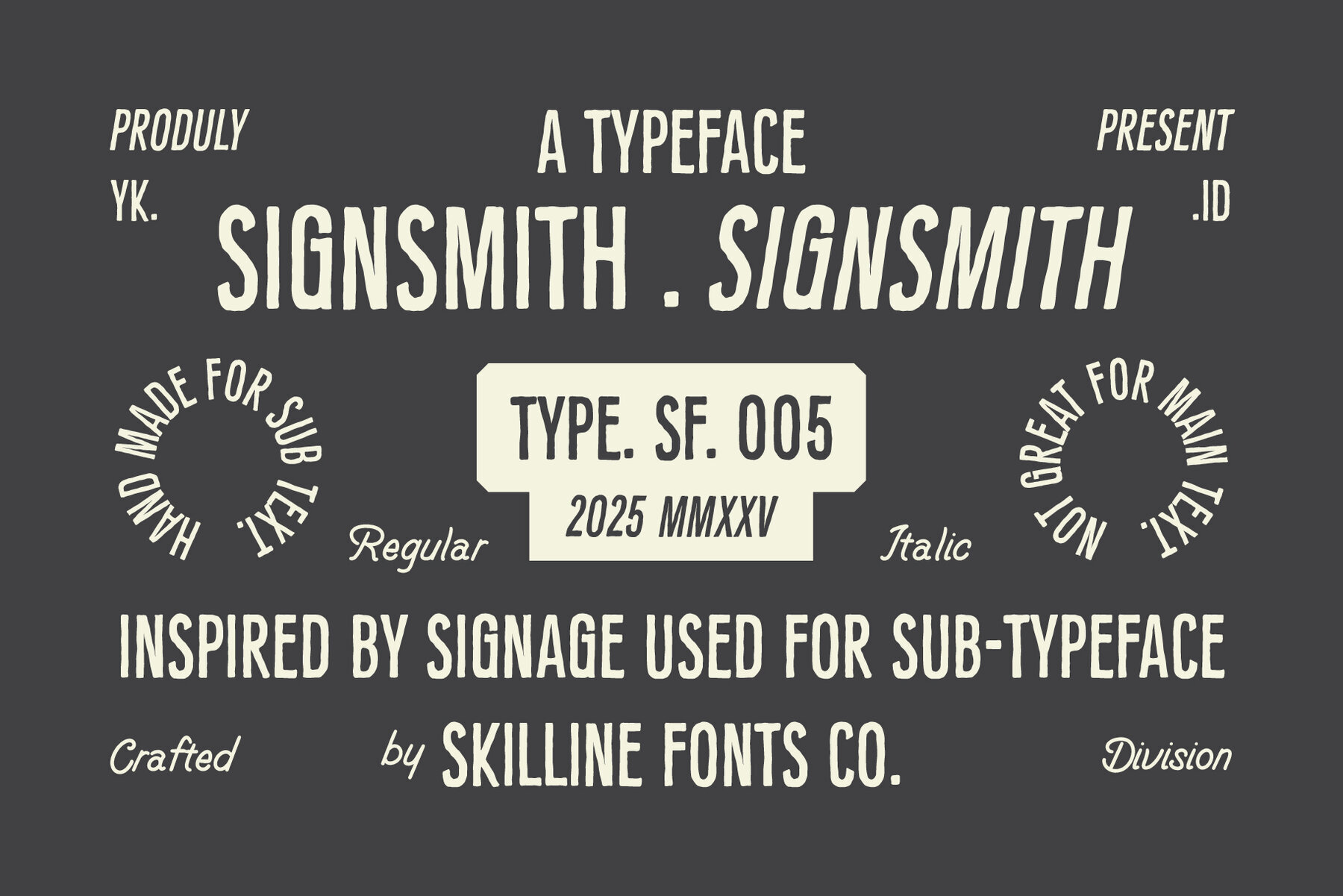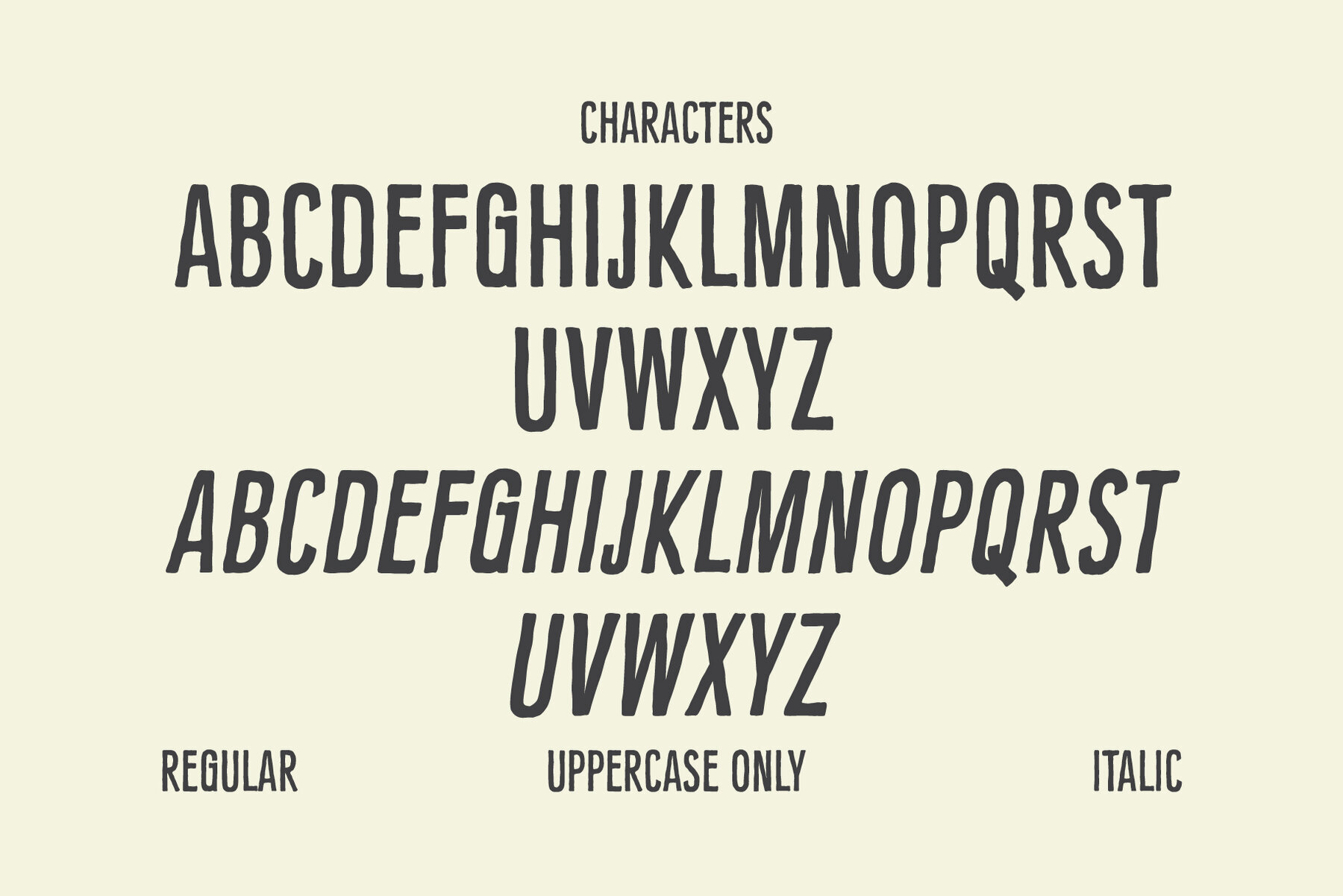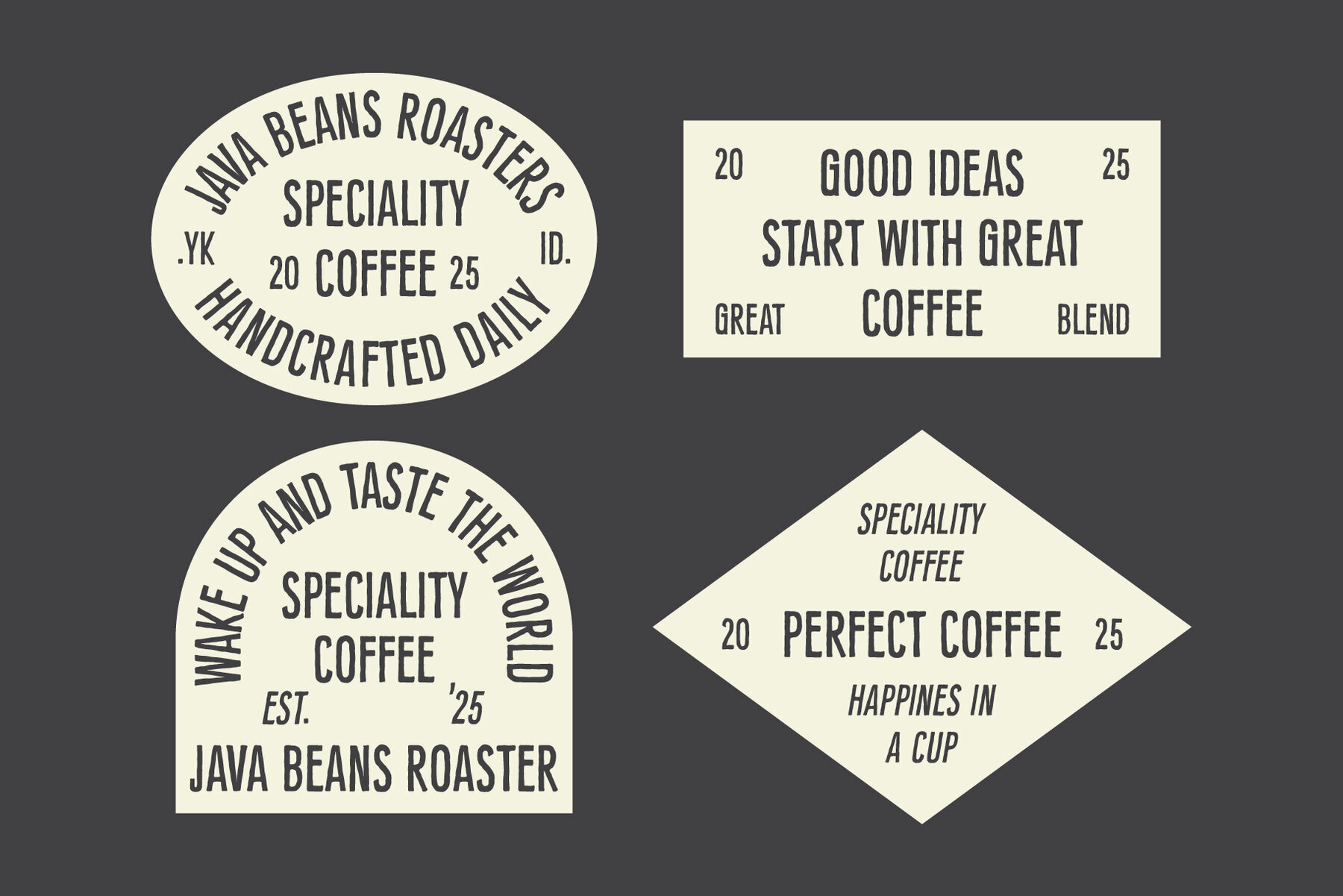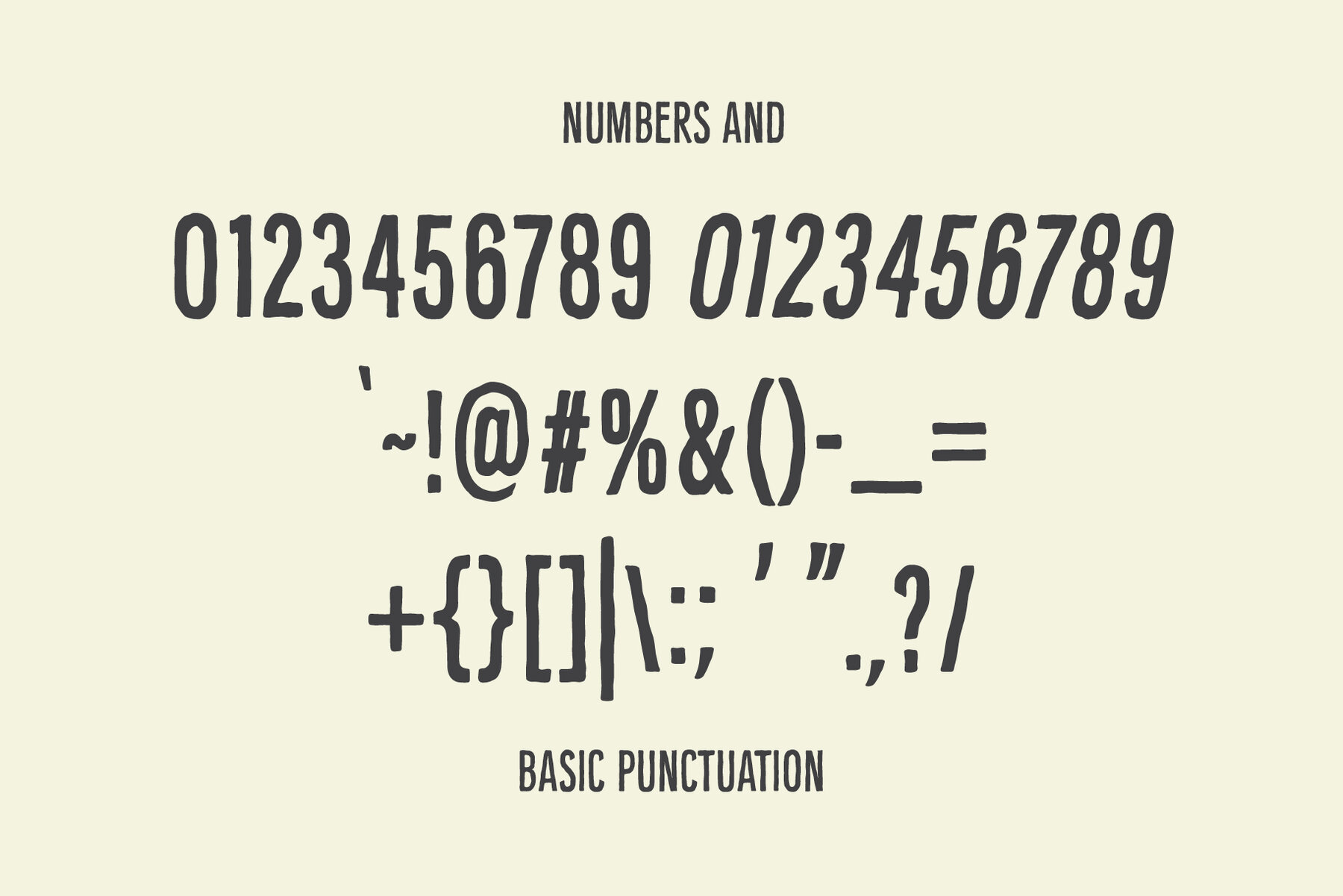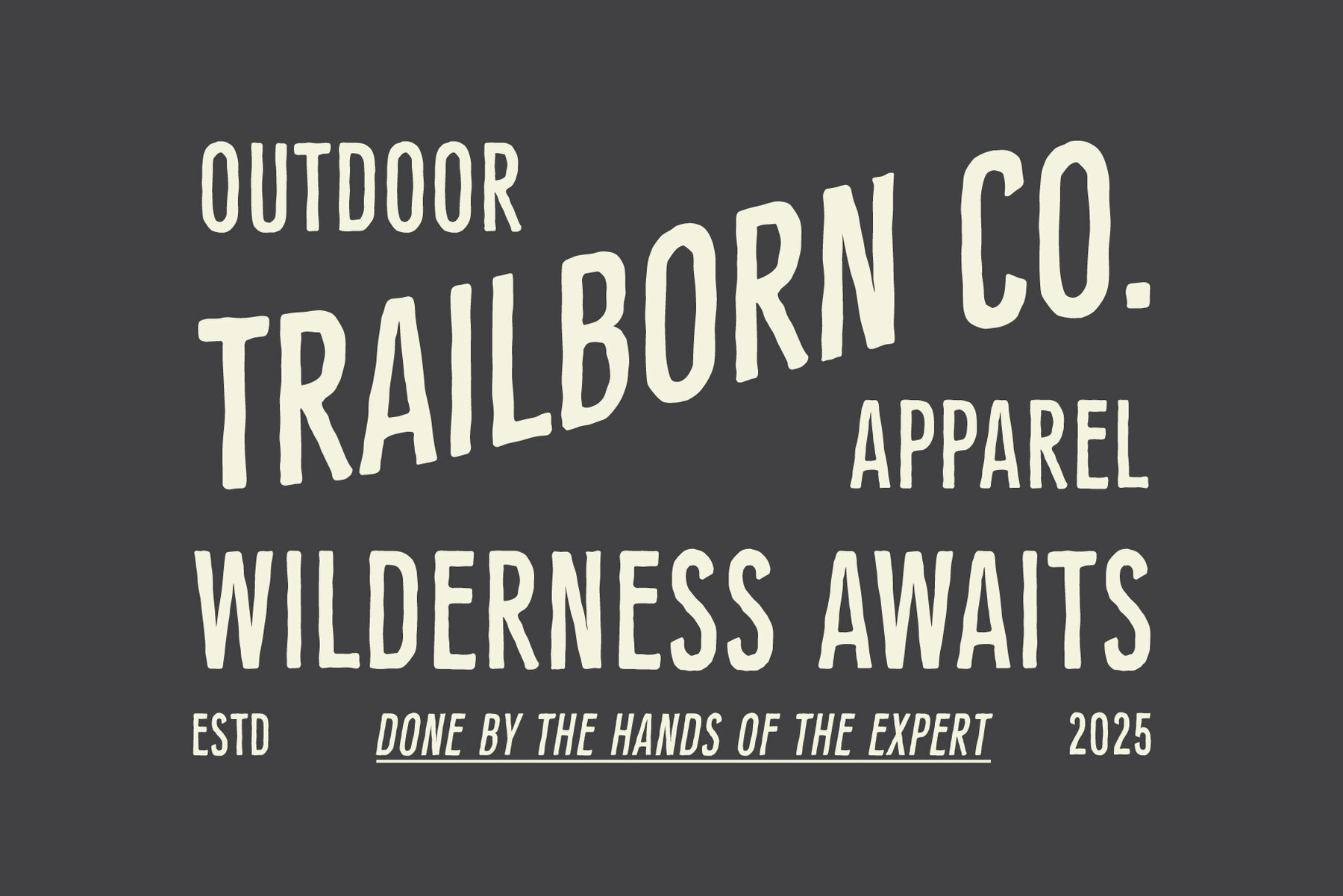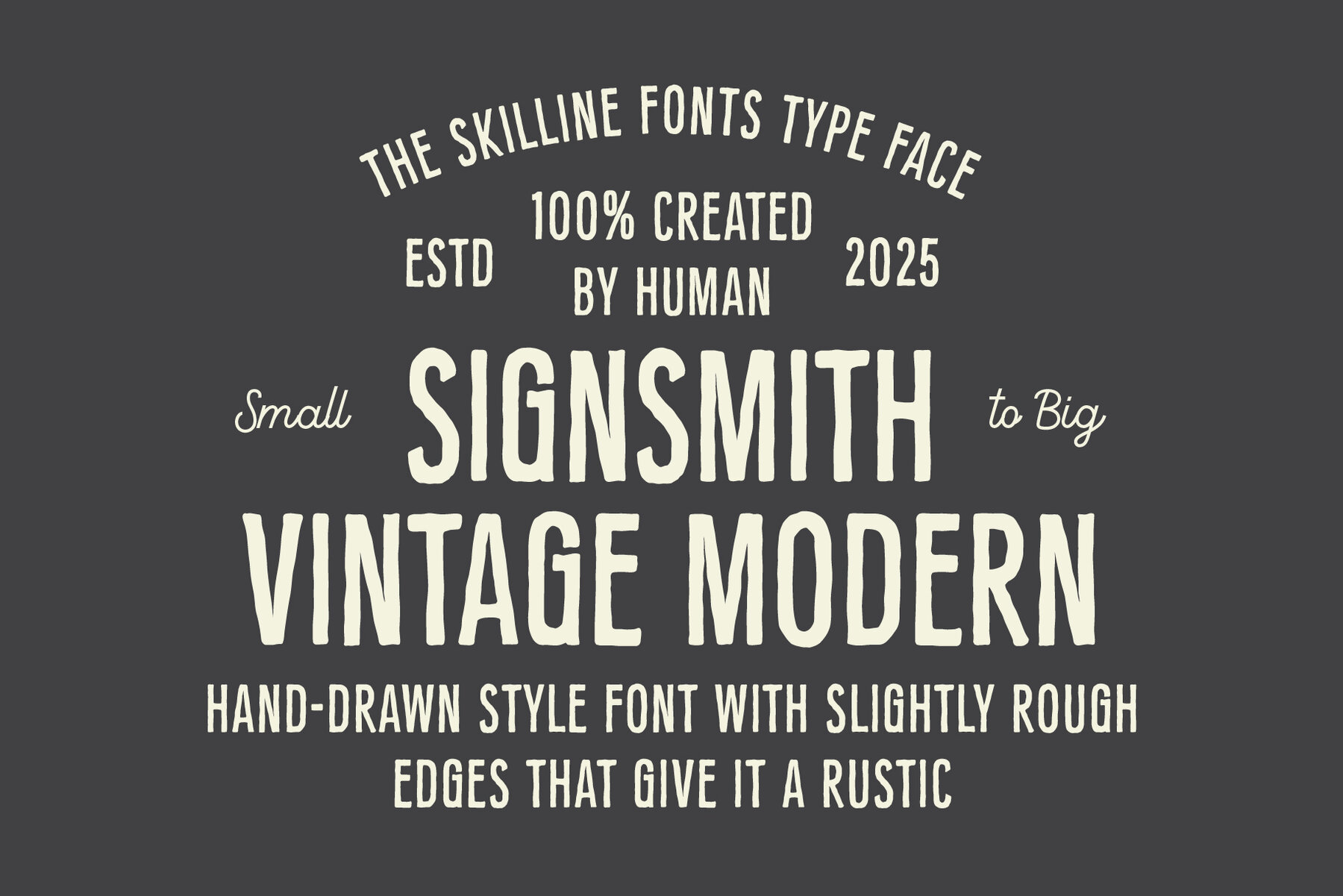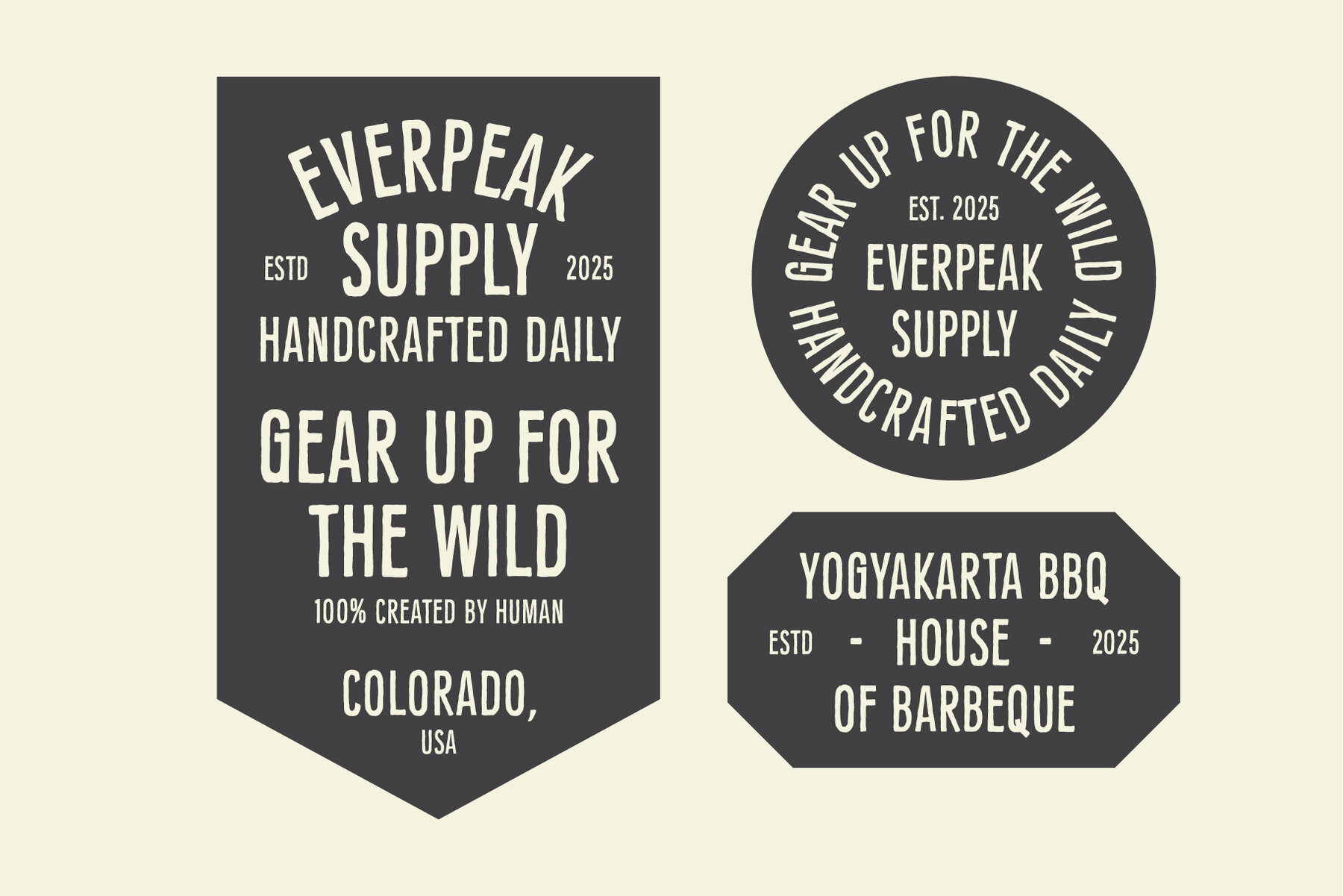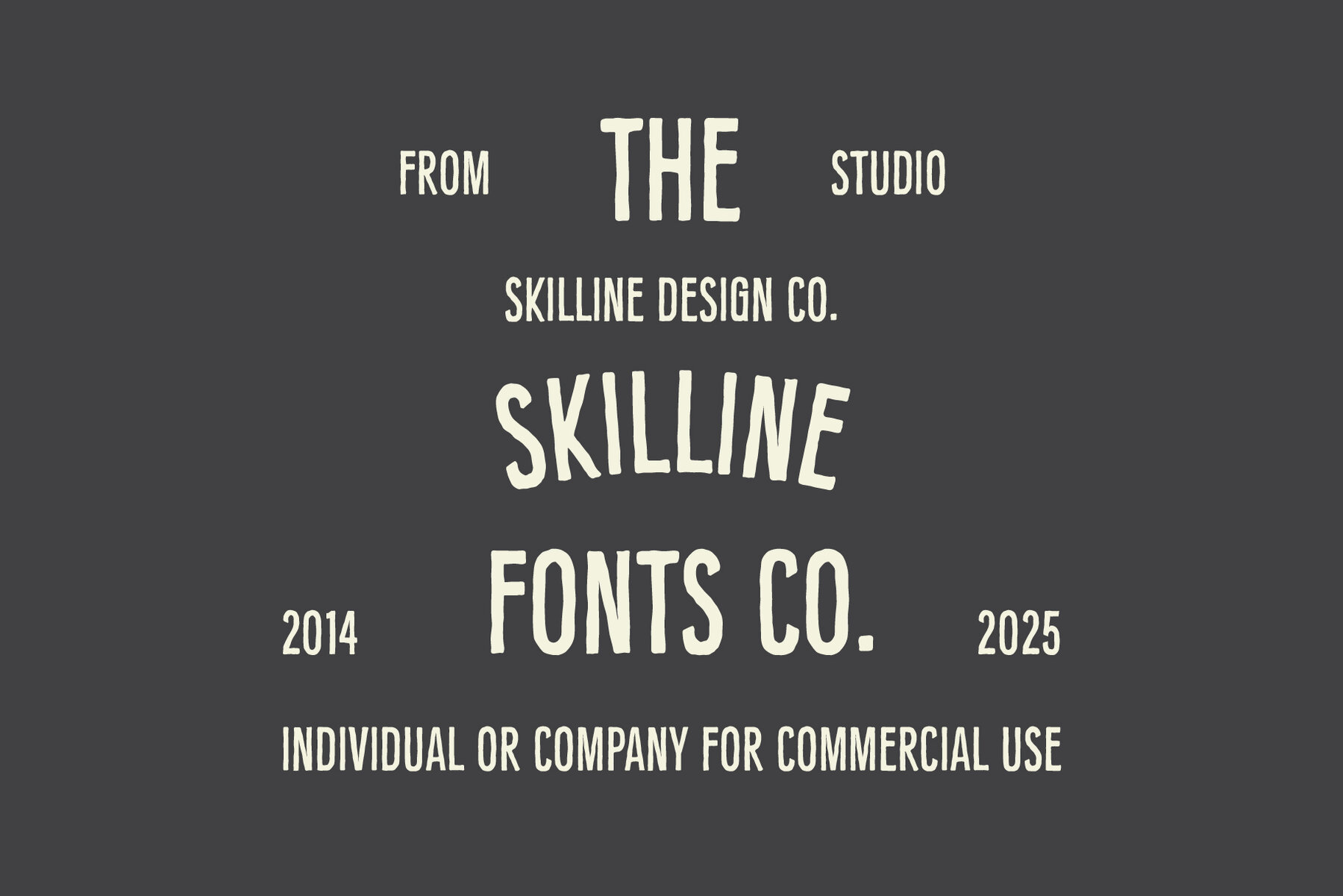
SFC Signsmith Font
Signsmith: Condensed Hand-Drawn Typeface with Vintage Signage Roots Available in both regular and italic styles, this font adds handcrafted charm to a wide range of applications. From logos and posters to apparel graphics, packaging, signage, and editorial layouts, Signsmith offers a striking look that feels both artisanal and professional. Ideal Applications for Signsmith Branding and logo design with a vintage edge Posters and bold editorial layouts Packaging and product labels with handcrafted appeal Apparel graphics with rugged authenticity Signage and display designs with strong impact
Signsmith is a condensed hand-drawn display font inspired by the traditions of vintage sign painting. With bold strokes, handcrafted texture, and condensed proportions, it strikes the perfect balance between rugged authenticity and strong readability. Designed for creatives who want a nostalgic yet versatile typeface, Signsmith delivers timeless character for modern projects.